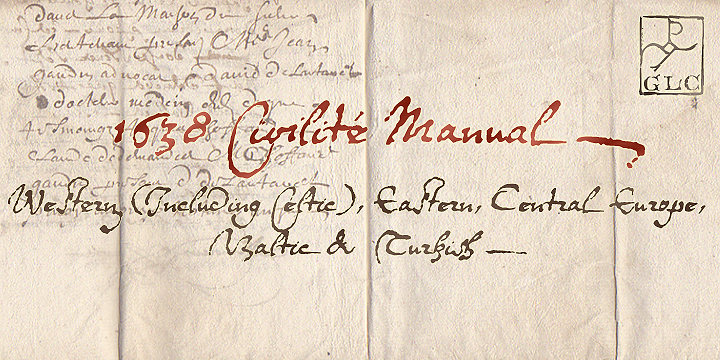
1638 Civilite Manual Font is perfect for historical document reproductions, renaissance manuscript designs, classical literature publishing, academic historical texts, period drama productions, vintage wedding invitations, heritage museum exhibitions, antique book reproductions, and scholarly medieval studies materials.
What makes 1638 Civilite Manual Font so exciting is its authentic historical grandeur that perfectly preserves the elegant sophistication and scholarly tradition of 17th-century French civilité typography. This magnificent typeface features meticulously recreated letterforms with period-accurate proportions and classical character details that transport readers to the golden age of European printing and scholarly manuscripts. The font's distinctive character incorporates the intellectual refinement of renaissance humanism while maintaining exceptional readability, making it ideal for historical projects seeking to communicate academic authority and cultural authenticity.
1638 Civilite Manual Font includes a scholarly family with Regular, Bold, and Italic variations, each maintaining the signature historical aesthetic while offering different levels of period emphasis for various academic and cultural applications. Additional renaissance ornaments and classical decorative elements enhance the font's authentic 17th-century appeal for scholarly historical projects.
Whether you're developing heritage academic brands, creating historical documentation, or designing period-appropriate cultural materials, 1638 Civilite Manual Font Free Download provides the scholarly excellence and historical authenticity that academic historical projects require. Its versatile nature makes it suitable for both detailed manuscript reproduction and elegant display applications while maintaining consistent renaissance appeal across all scholarly platforms. This exceptional typeface brings genuine historical scholarship to modern designs, ensuring your message communicates intellectual authority and cultural heritage that resonates with academics and historians who appreciate authentic period typography and value design that honors the finest traditions of European scholarly printing.